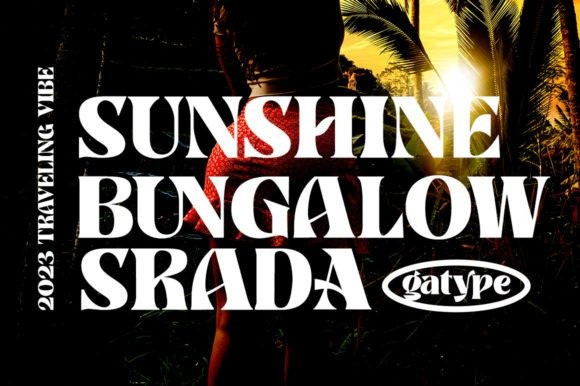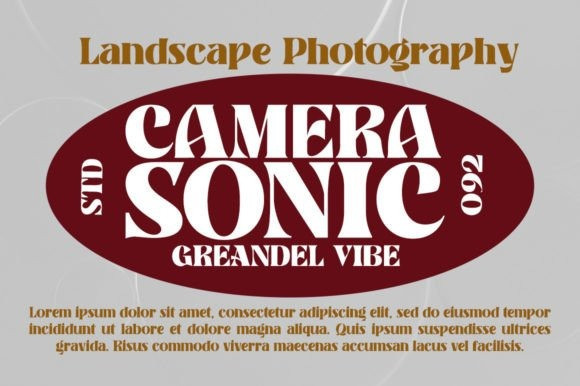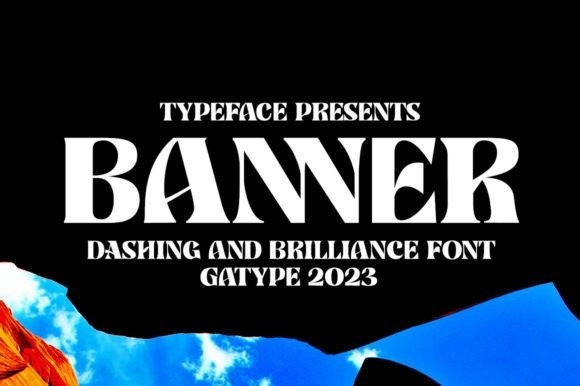
Banner Font
Banner Font is a versatile serif font with a clean and sleek shape. The overall typeface is strong and designed to bring order and harmony between letters. It is perfectly used for logos, social media, logos, web designs, glyers, and more!